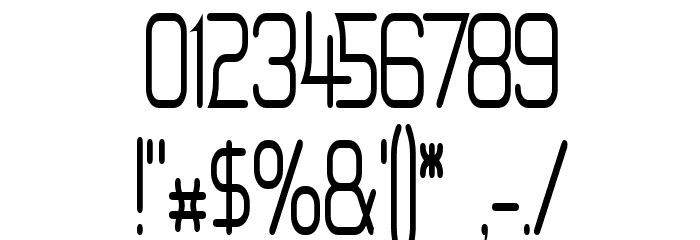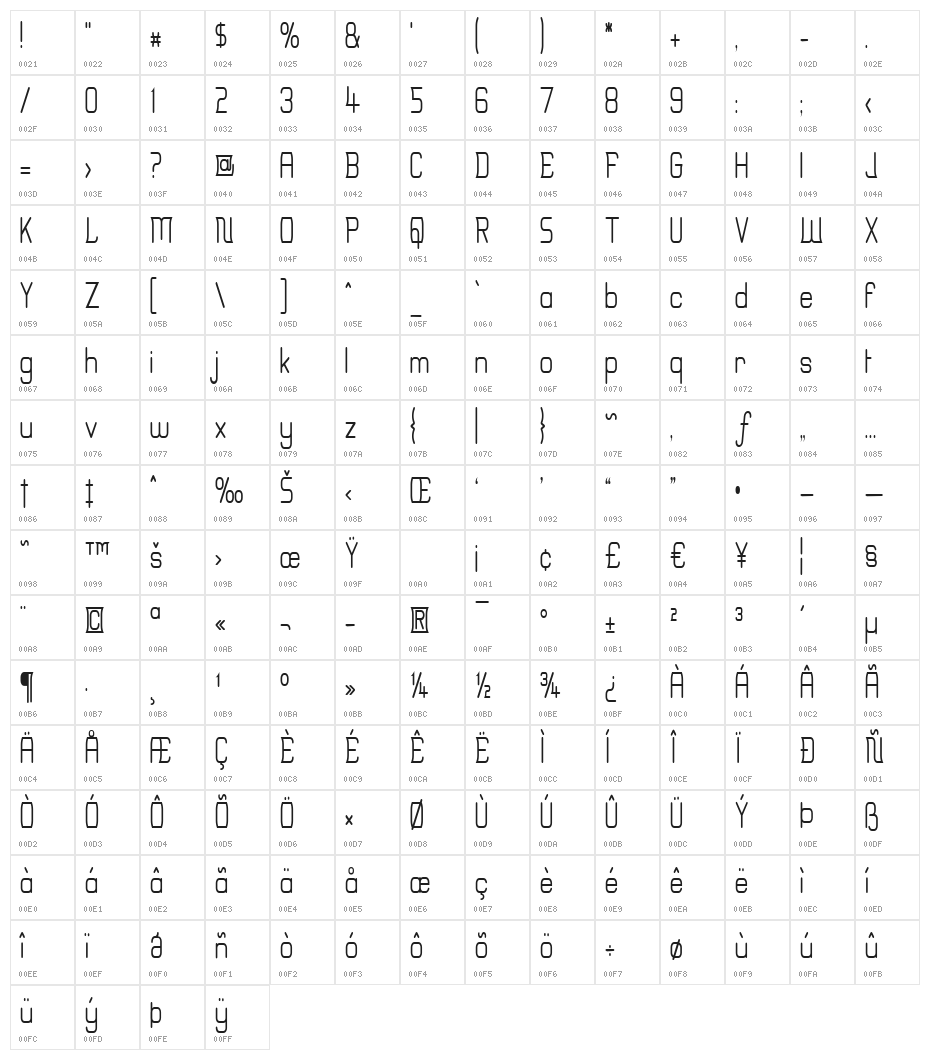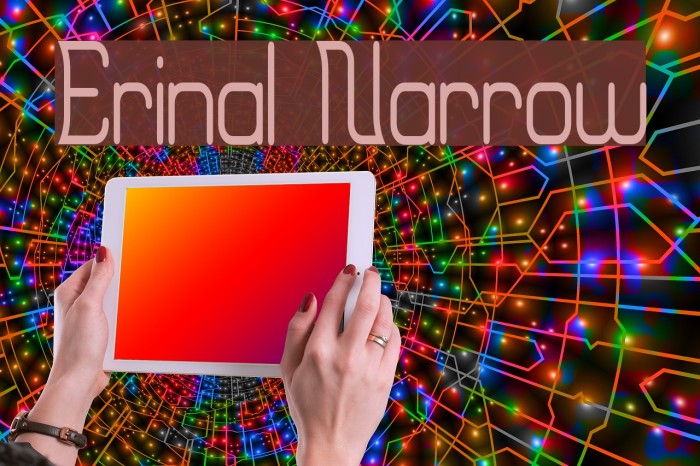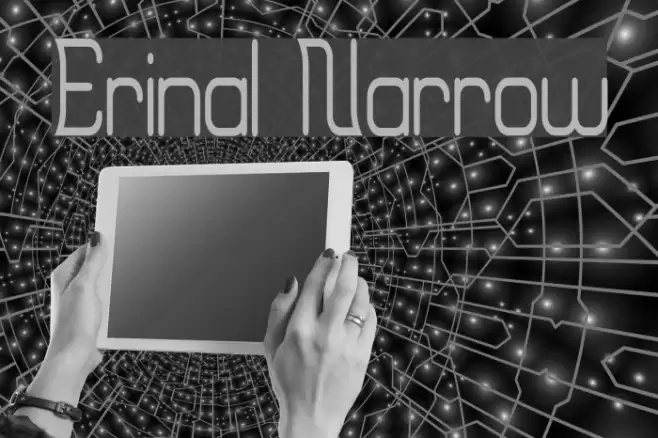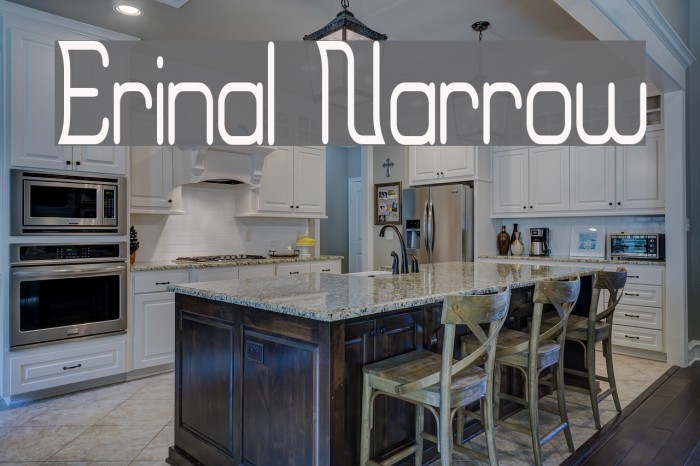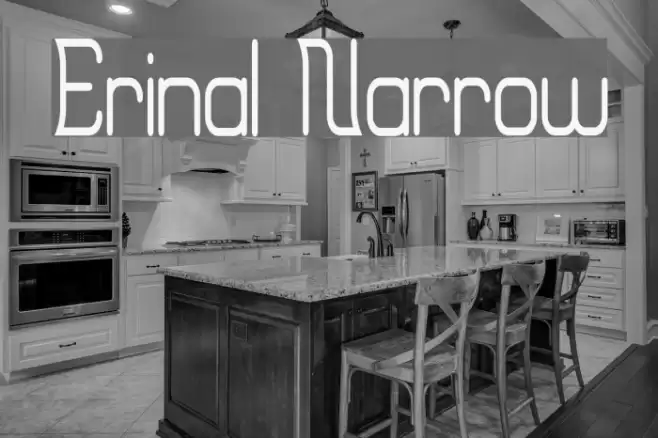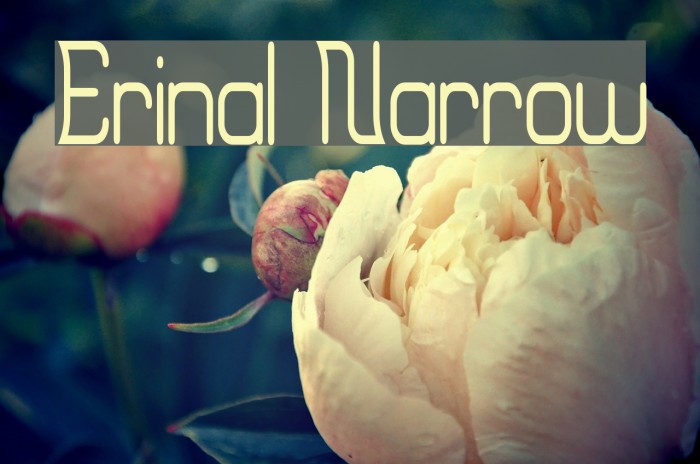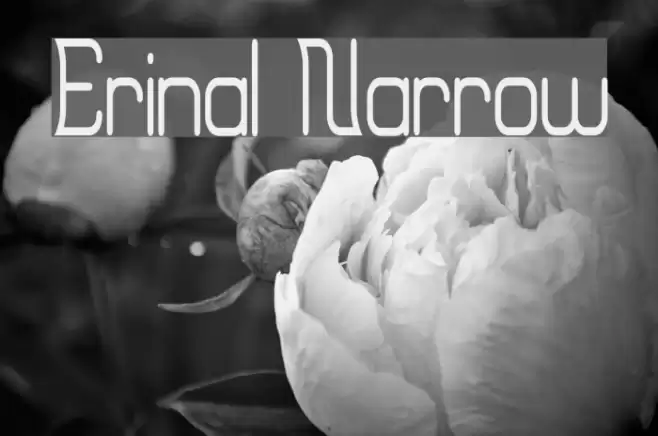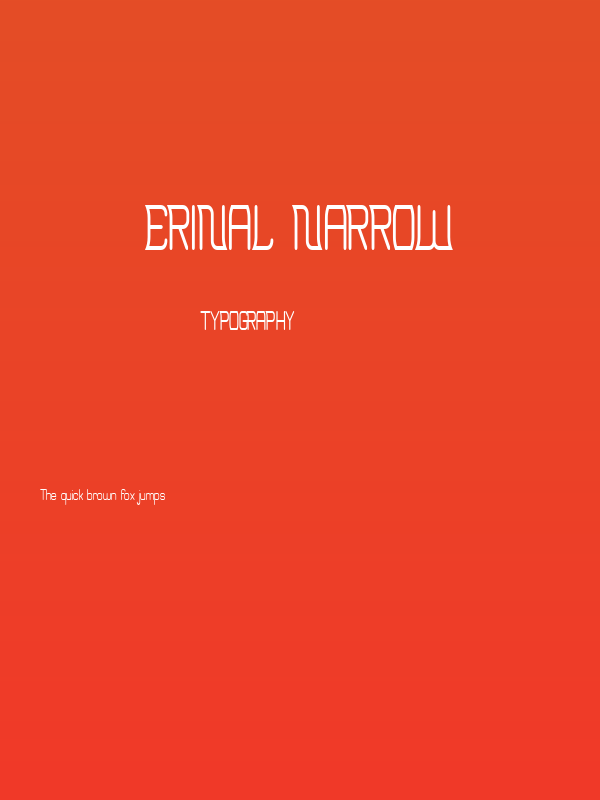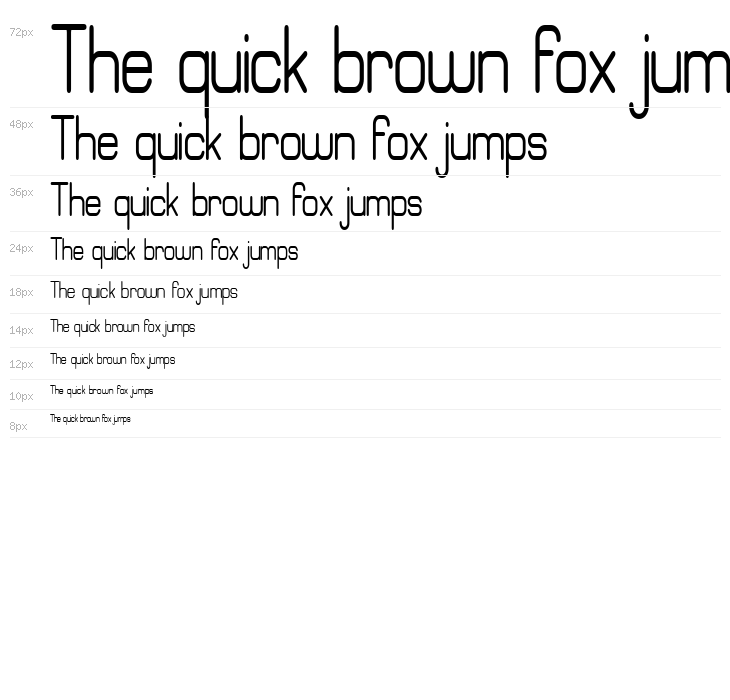
Erinal Narrow Font
Erinal Narrow Description
This font features a modern and geometric design with a narrow structure. The characters are elongated and have a consistent stroke width, giving it a sleek and contemporary appearance. The uppercase letters are tall and slightly condensed, while the lowercase letters maintain a similar narrowness, enhancing the uniformity across the typeface. The numerals and special characters follow the same design principles, ensuring a cohesive look. The overall style is minimalistic, making it suitable for projects that require a clean and professional aesthetic.
| Proposed Projects | Ideal for branding, editorial design, and digital interfaces where a modern and clean look is desired. |